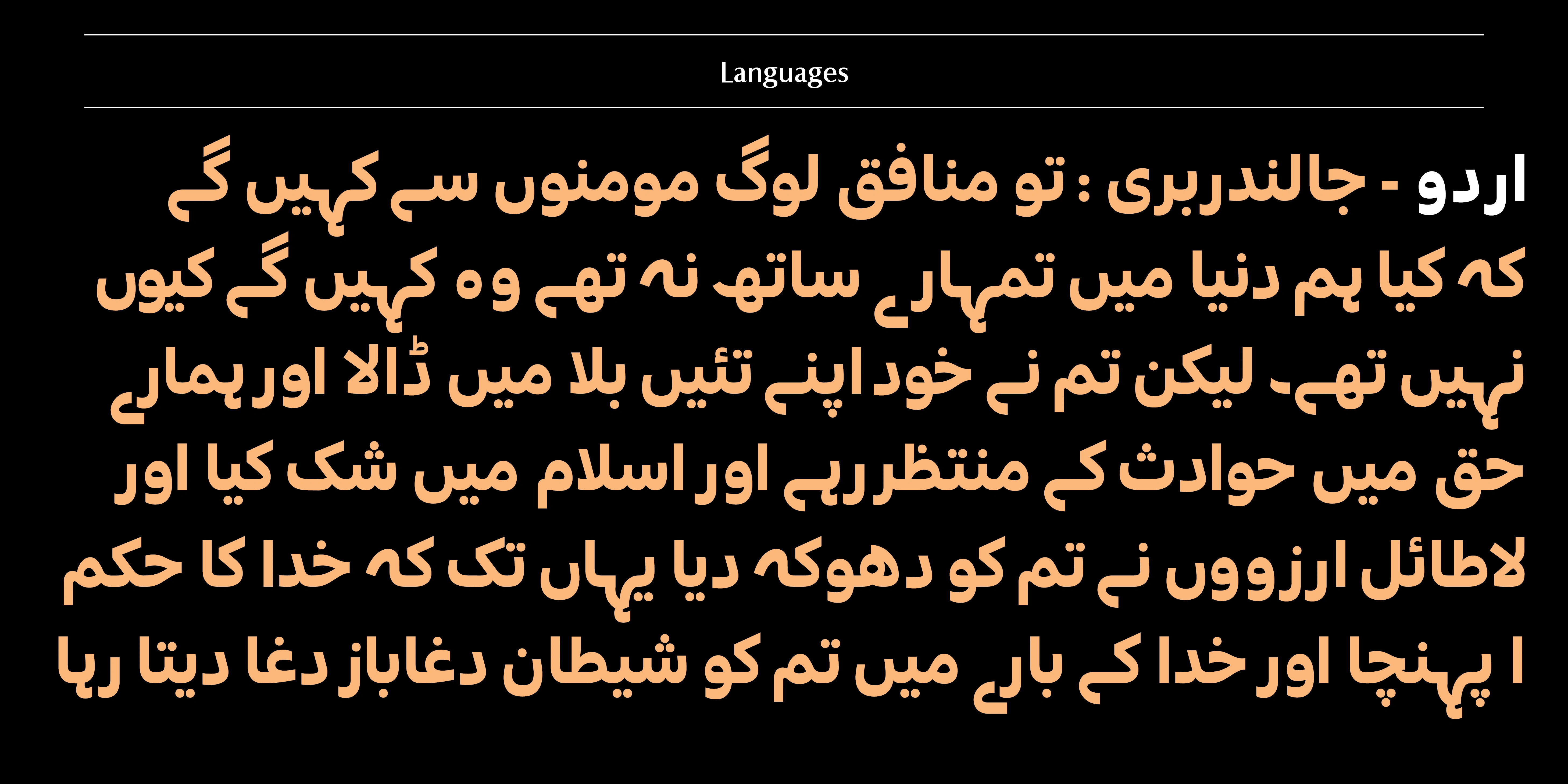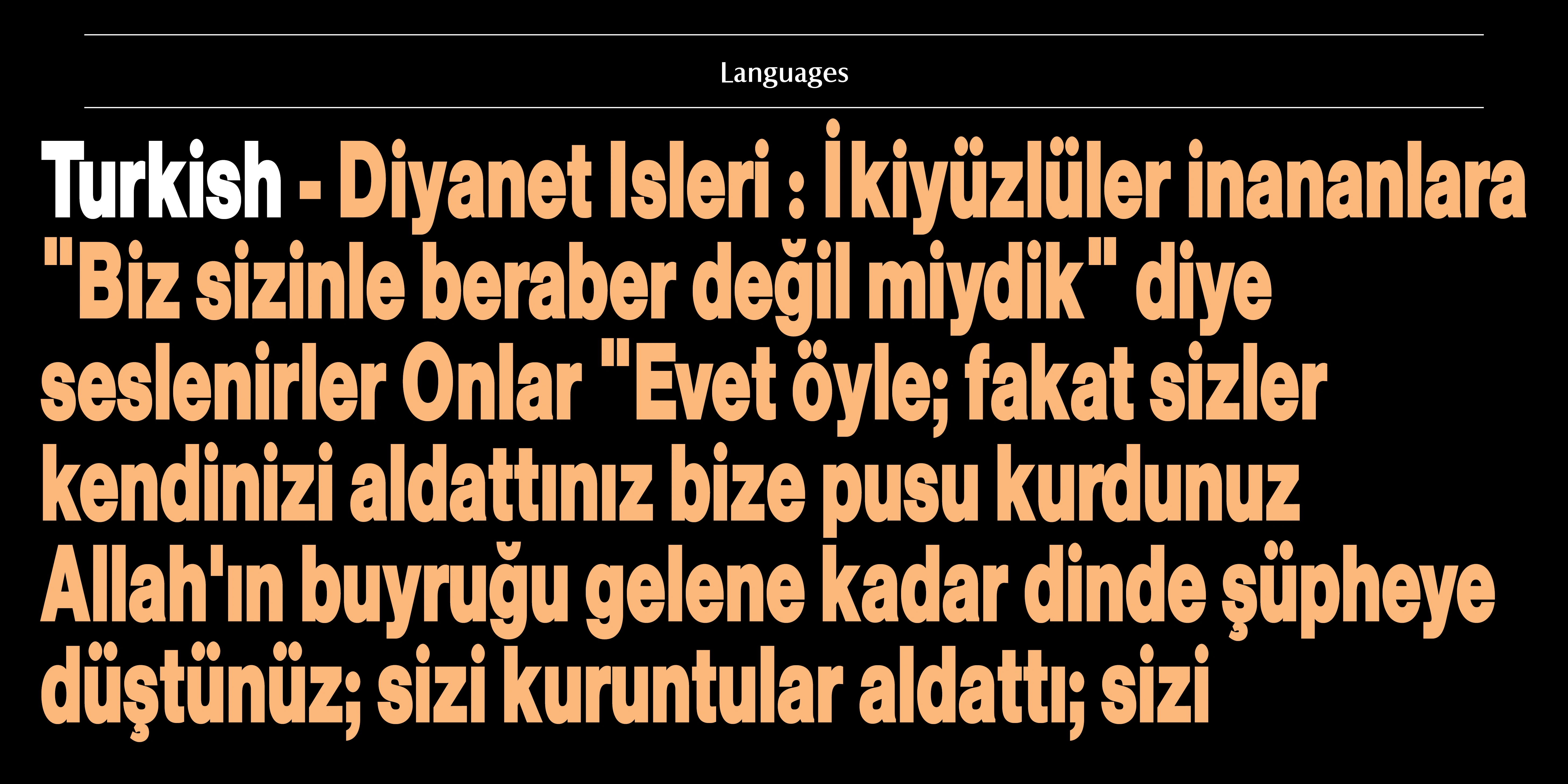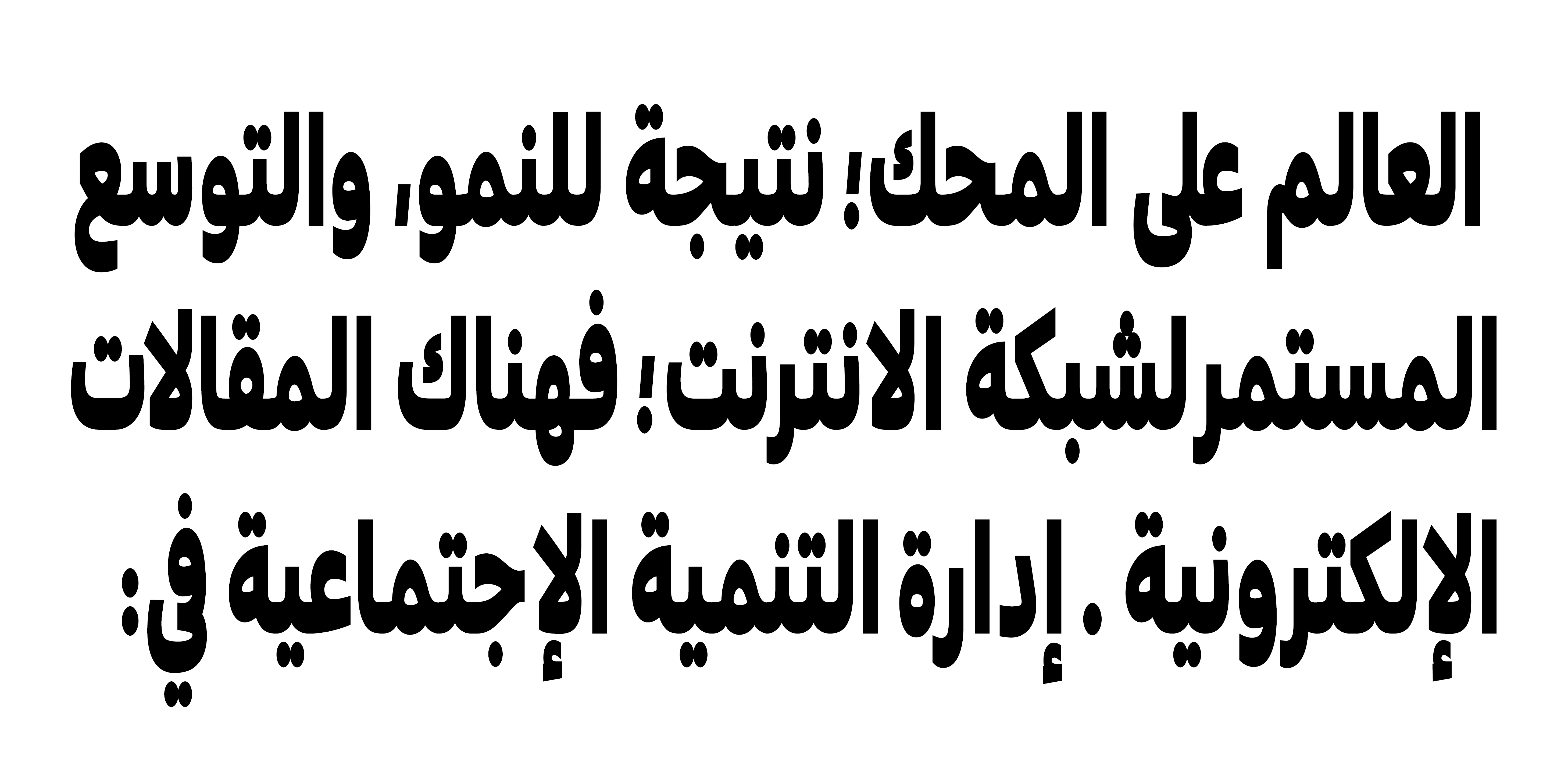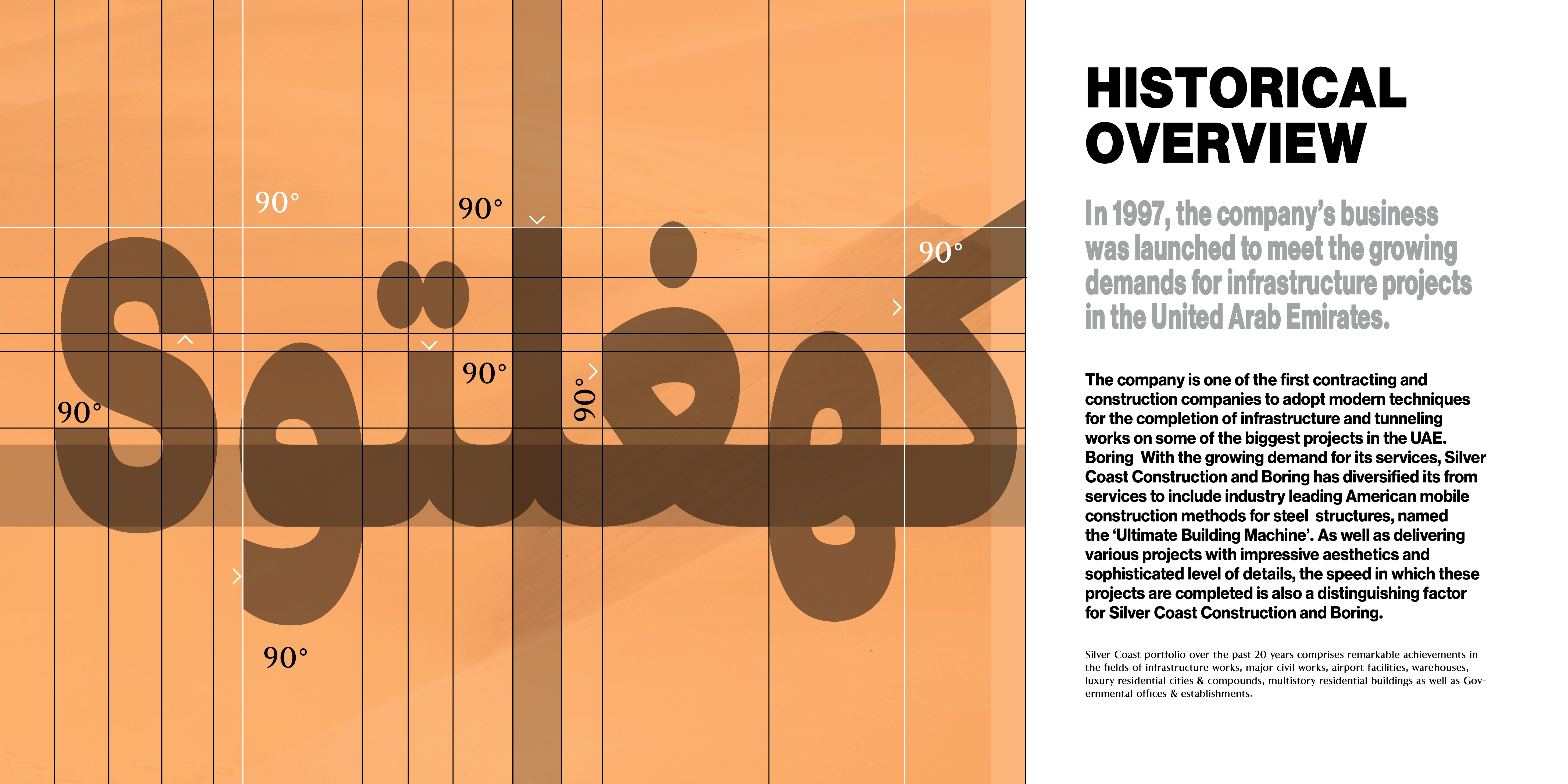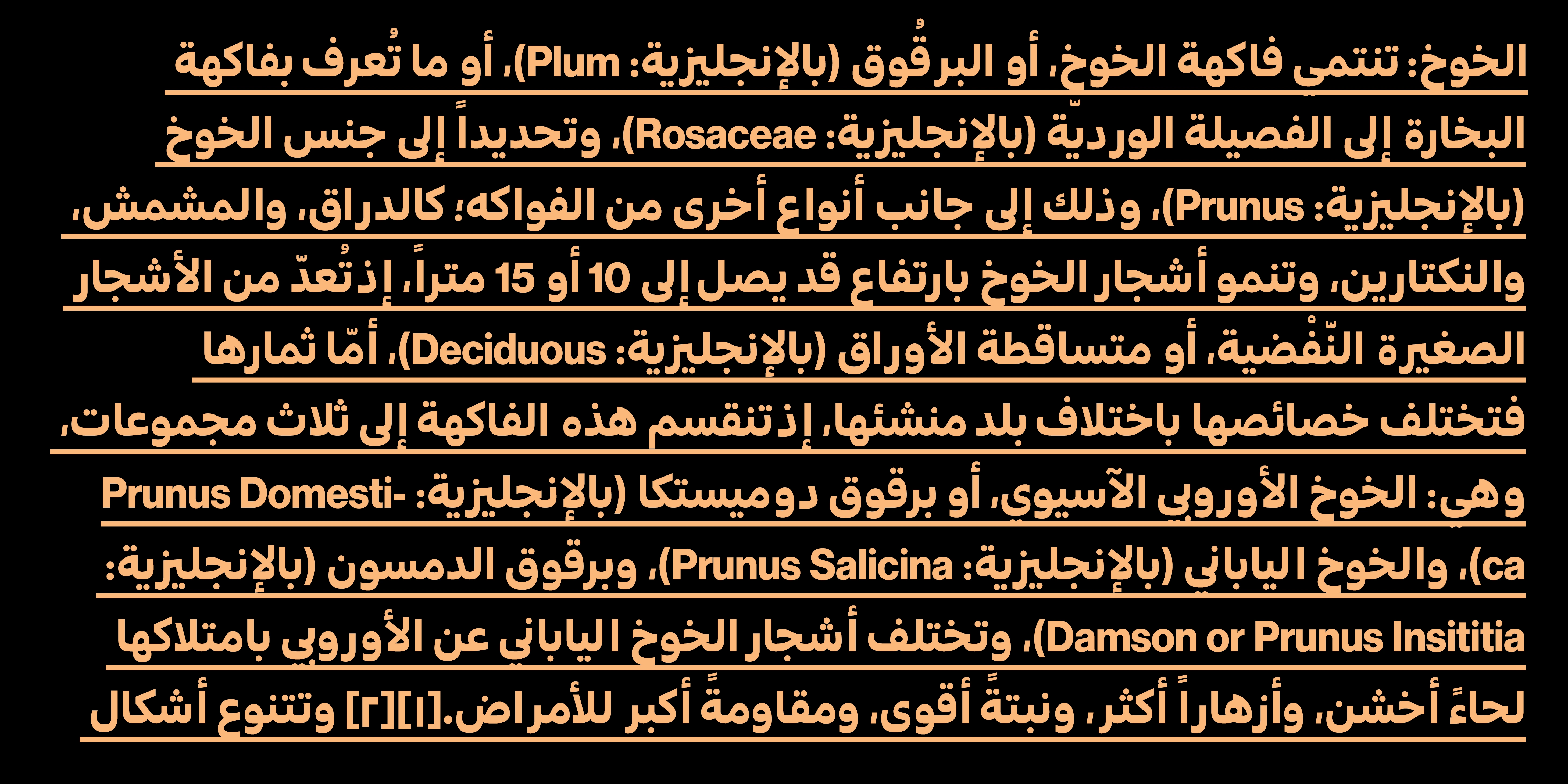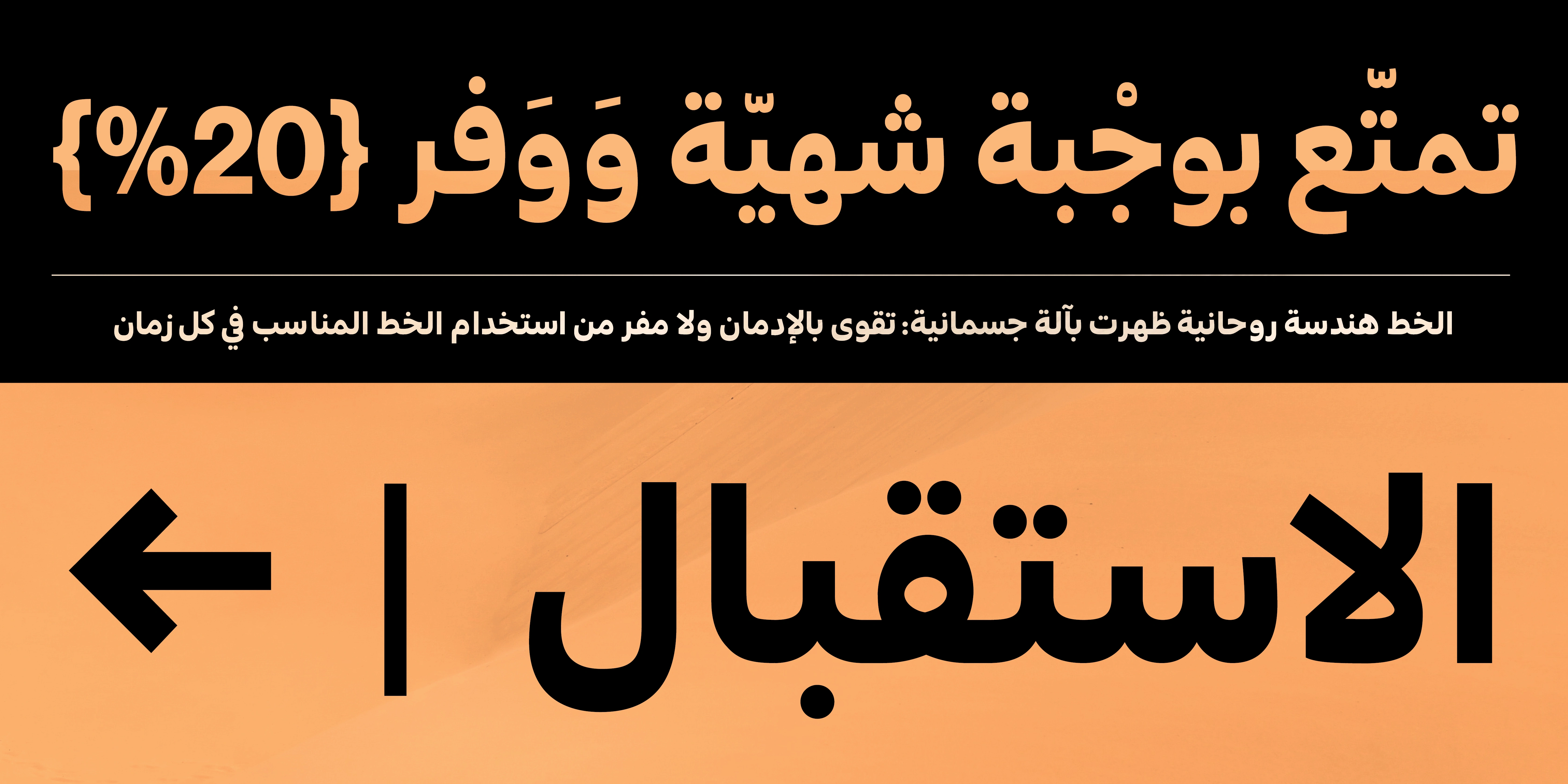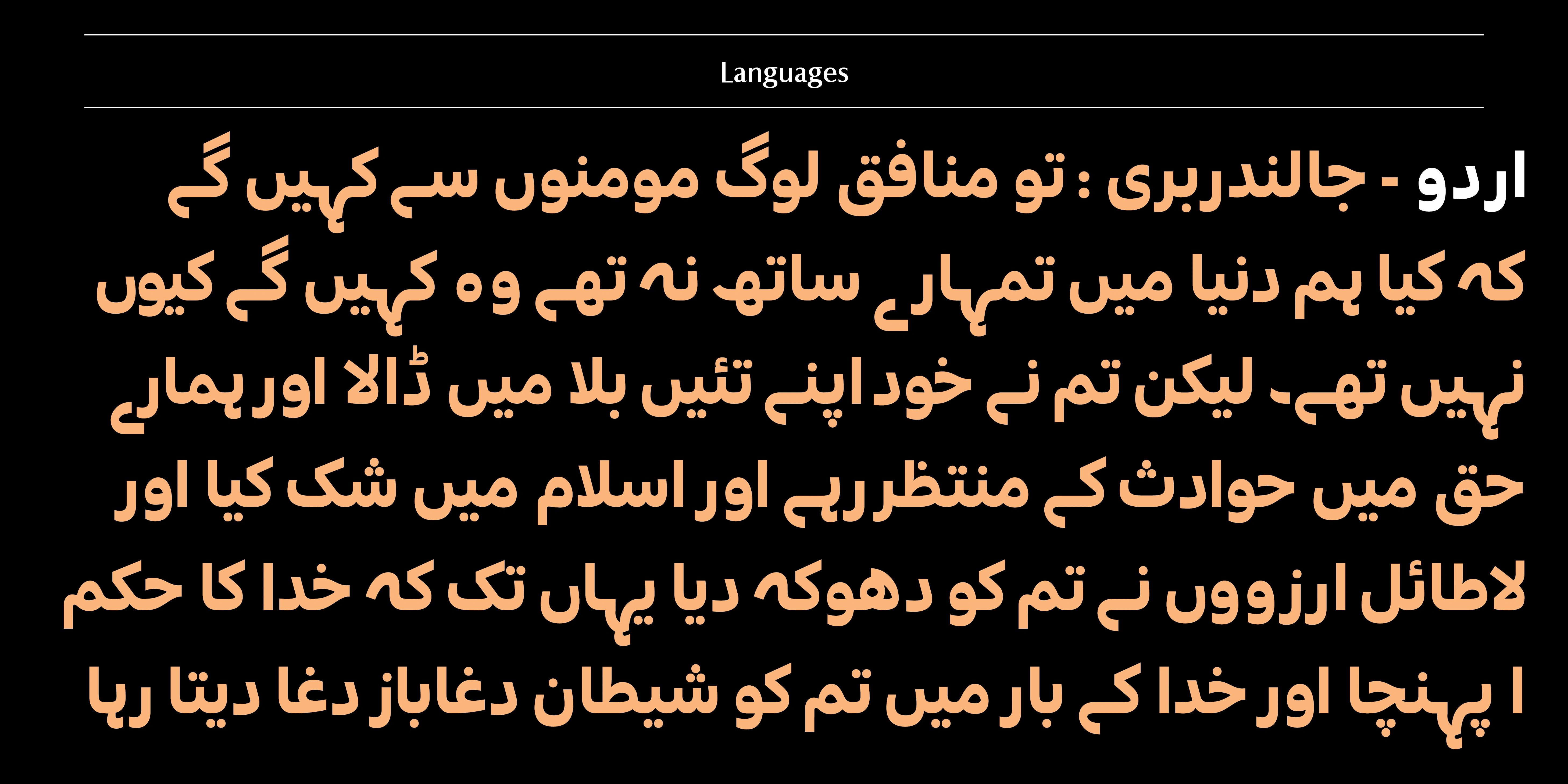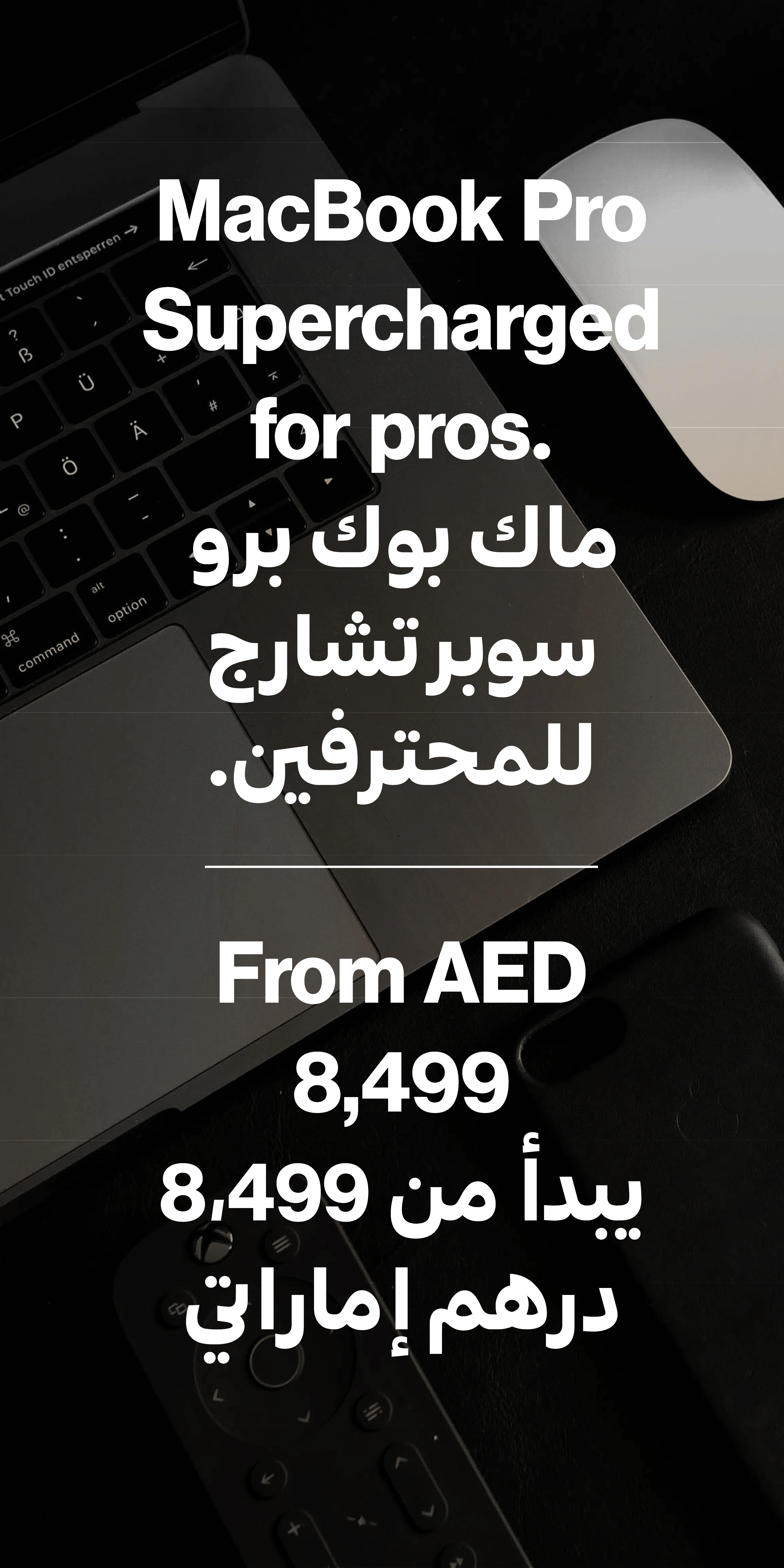
Abu Dhabi Typeface by Tanween Type
Abu Dhabi Typeface
Tanween Type
Abu Dhabi 2023
Typeface
PUBLISHED  Tanween Type 2022
DESIGNED & PROGRAMMED BY Dyab Jaser
FONT FAMILY
4 Weights
​​​​​​​FEATURES
Angular typeface  Every weight 1000 glyph MORE INFORMATIONS
Arabic, Urdu, Persian, and more than 86 Languages
Very Readable in small sizes work with branding, editorials, logos, signs, titles & text  Special Character Basic symbols extra symbols mathematical symbols